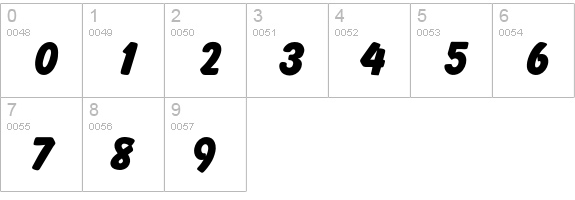
OPTIBalloonExtraBold Font Details
Introducing OPTIBalloonExtraBold font, a bold and eye-catching typeface that exudes a playful and dynamic vibe. With its rounded edges and sturdy letterforms, this font is perfect for making a statement in headlines, logos, posters, and more. OPTIBalloonExtraBold is designed to grab attention and add a touch of whimsy to your design projects. Its extra bold weight ensures visibility and impact, making it an ideal choice for projects that require a strong and confident typographic presence. Best of all, OPTIBalloonExtraBold is available for free download at FontsMarket.com. You can easily access this versatile font and incorporate it into your designs to elevate them to the next level. Don't miss out on the opportunity to add this unique and striking typeface to your font collection today!